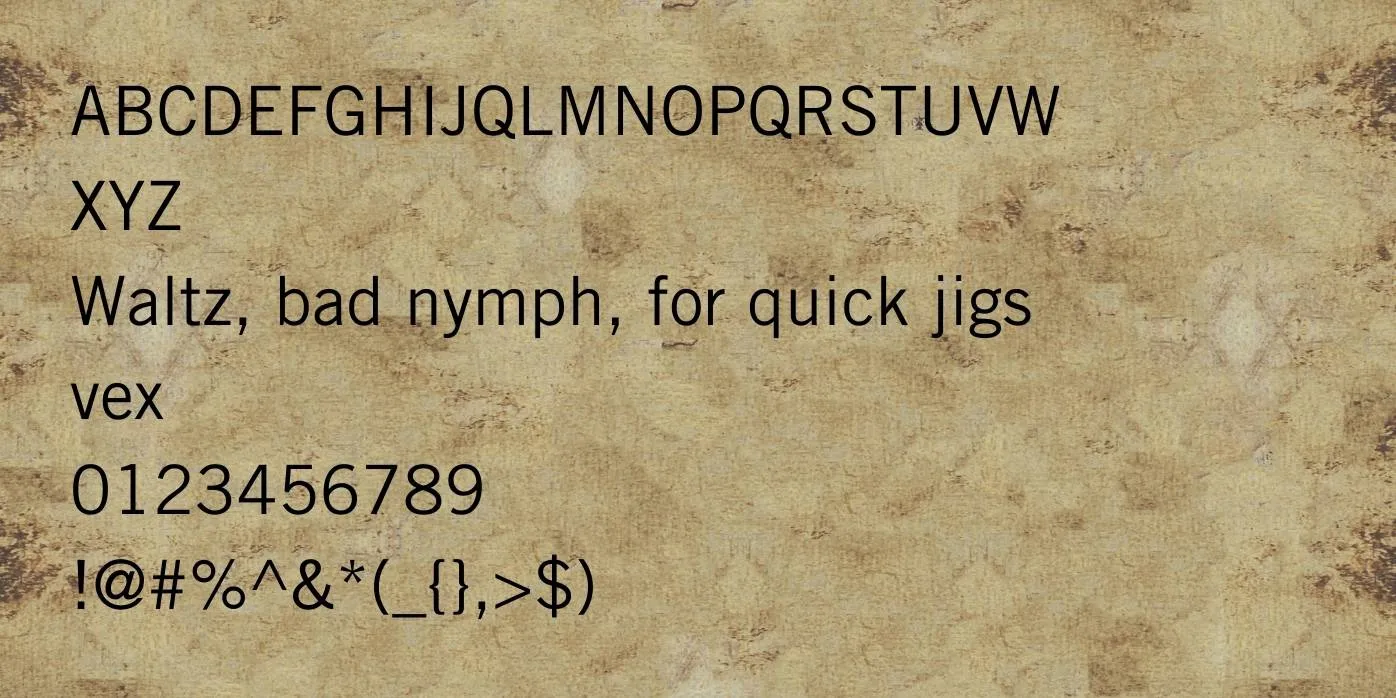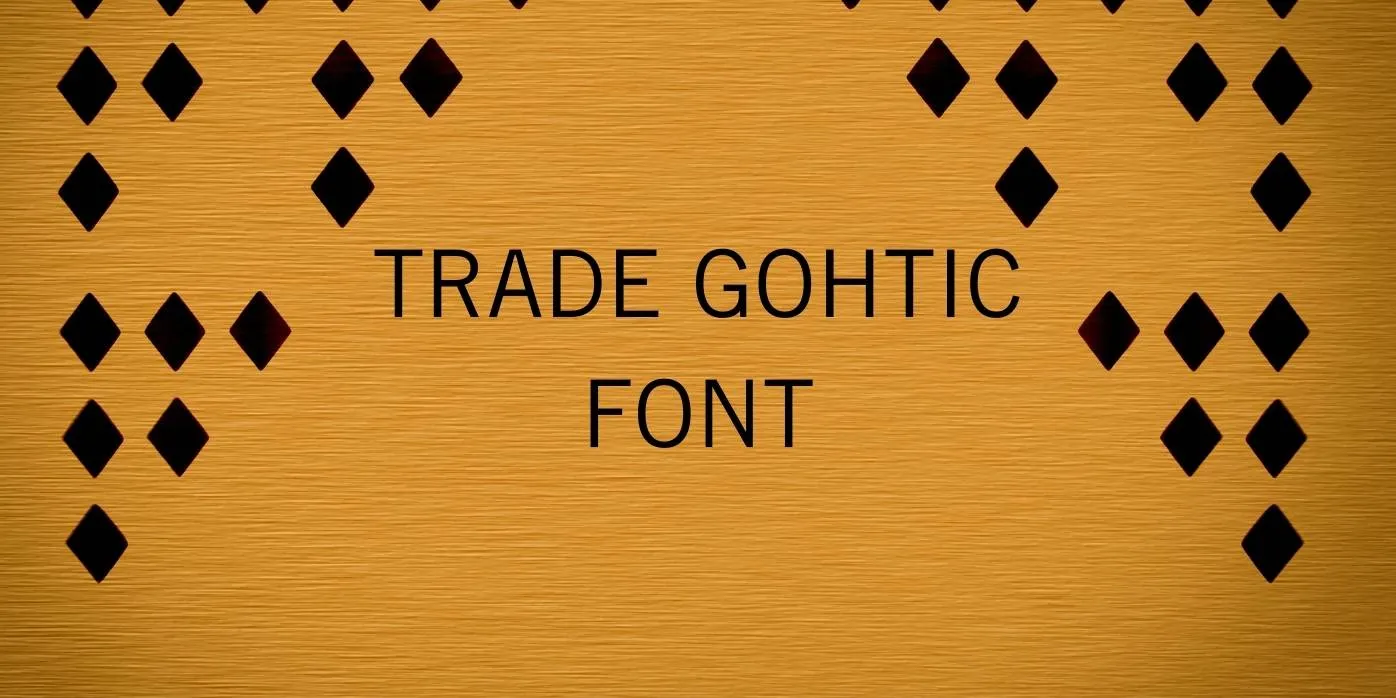
Trade Gothic Font
Introducing one of the most usable and Geometrical shape fonts that are Trade Gothic Font that belongs to a Sans Serif typeface family. The designer of this eminent font is Jackson Burke. The font family has a TTF feature and is free for commercial use. Jackson Burke continued to work on its weights and styles till 1996 and whereas he was worked as a director of type development at “Mergenthaler Linotype” in the United States of America.
The typeface has Uppercase Letters and Lowercase Letters, Numbers /  Numerals, and common symbols also. If we talk about its weights the font comes in different styles and weights contains Regular, Bold, Light, Oblique, Extended, Condensed, Light Oblique, Bold Condensed, Bold Extended, Condensed No. 18, etc. All the styles have stunning features and functions.